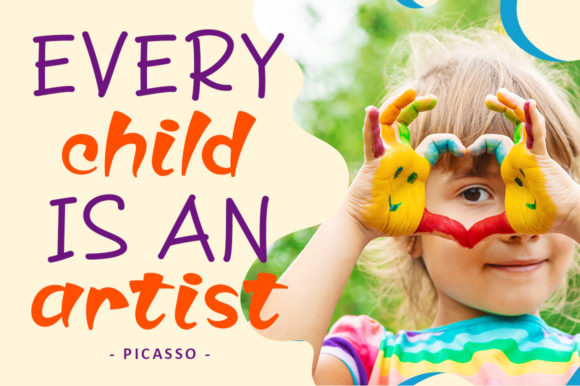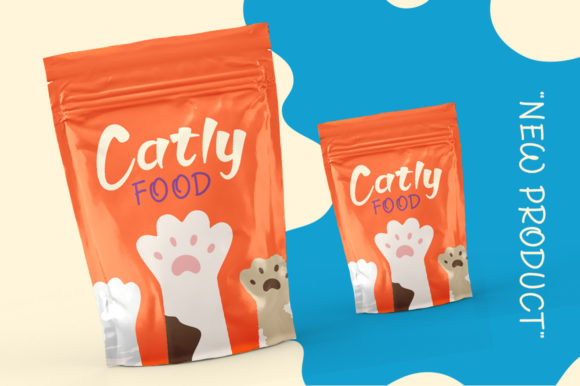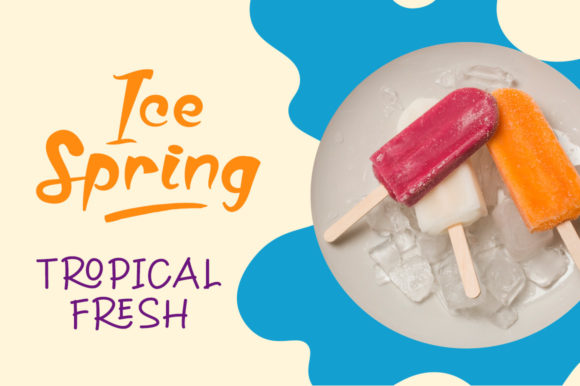
Introduction to Jelly Billy Font
Jelly Billy is a fun handwritten font featuring a quirky, bold, and modern style.
It will work perfectly with packaging products, merchandise or pretty much any design of spring or summer season that requires a touch of happiness and joy .
Why Choose Jelly Billy Font?